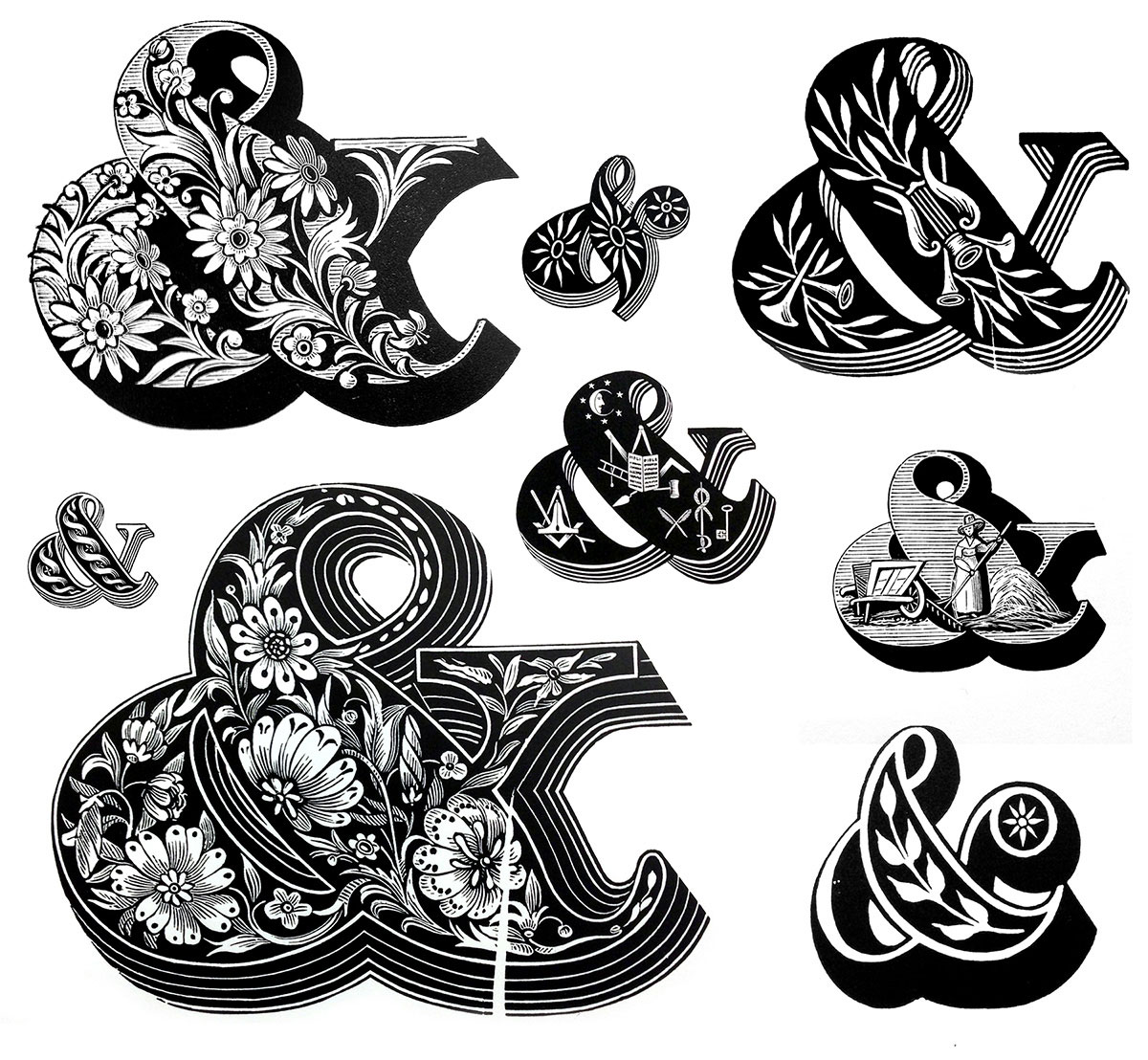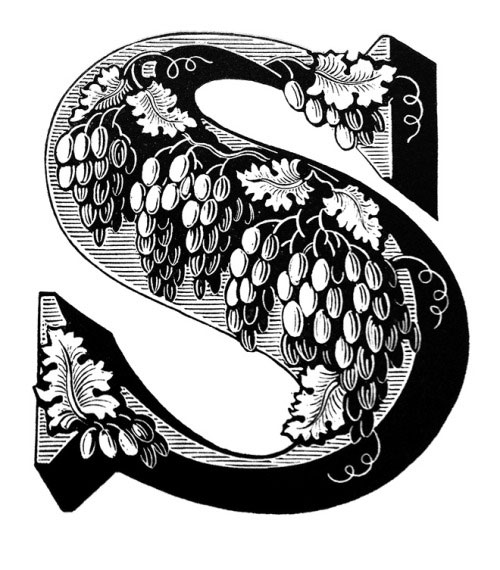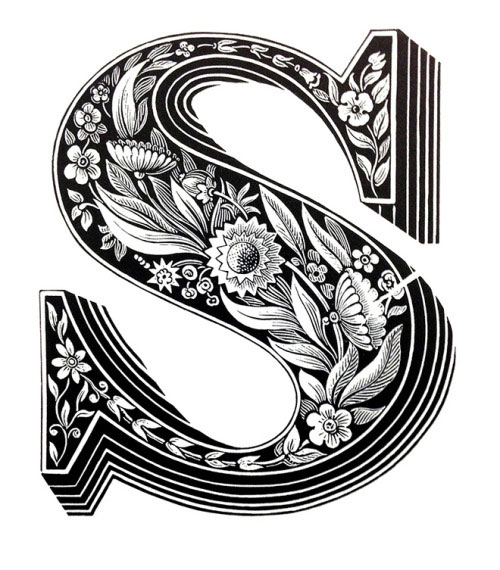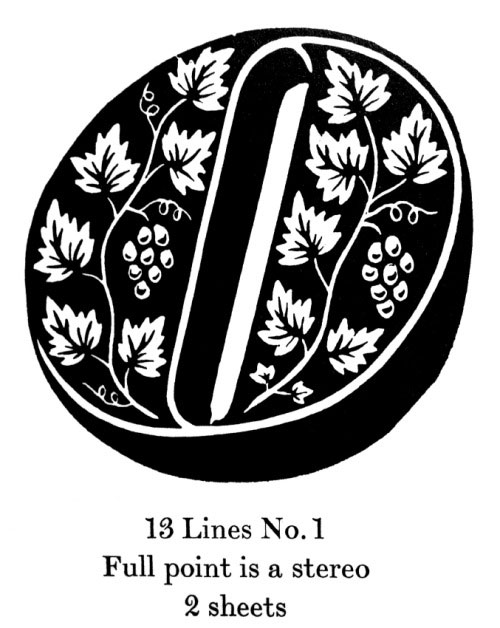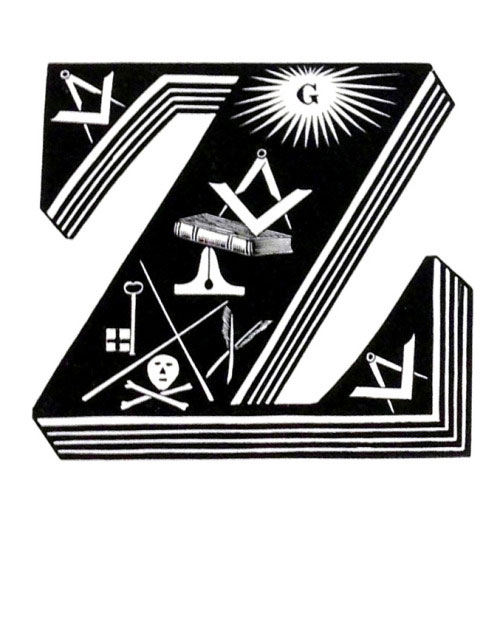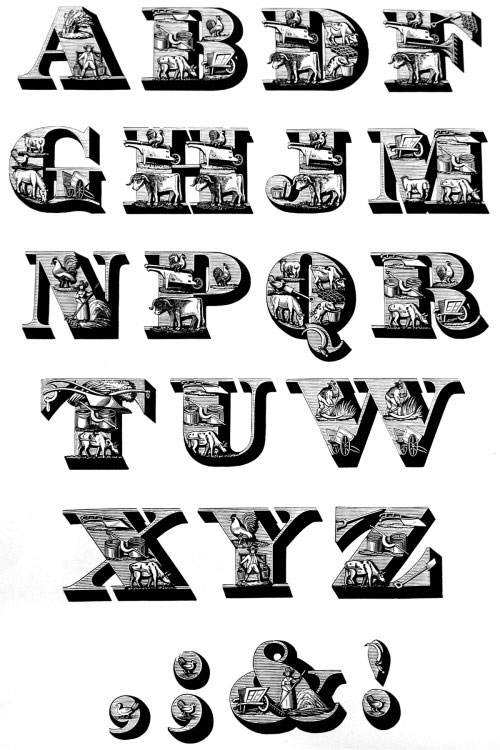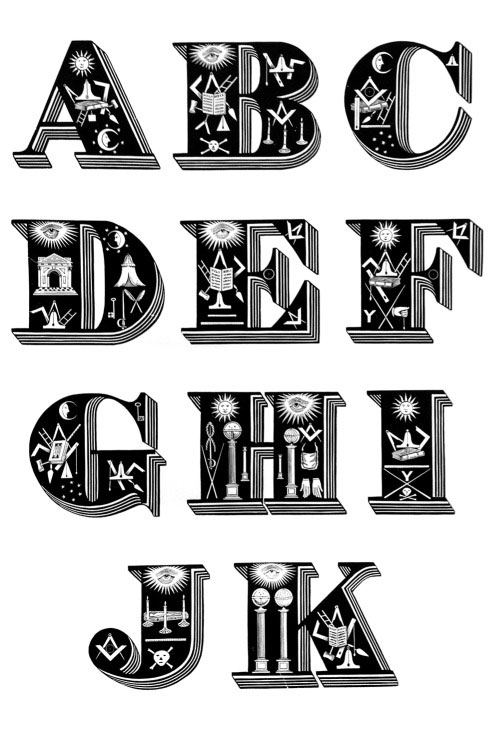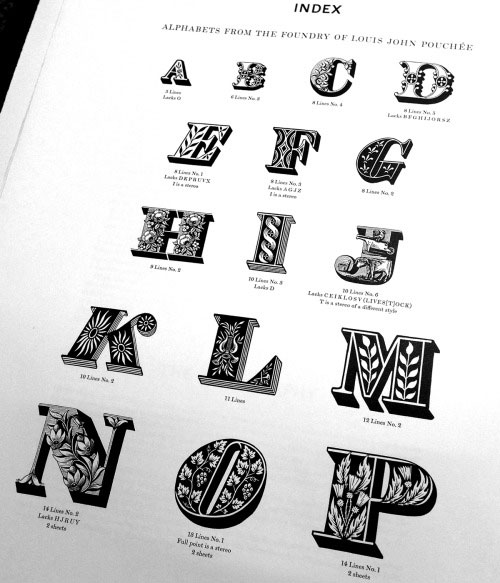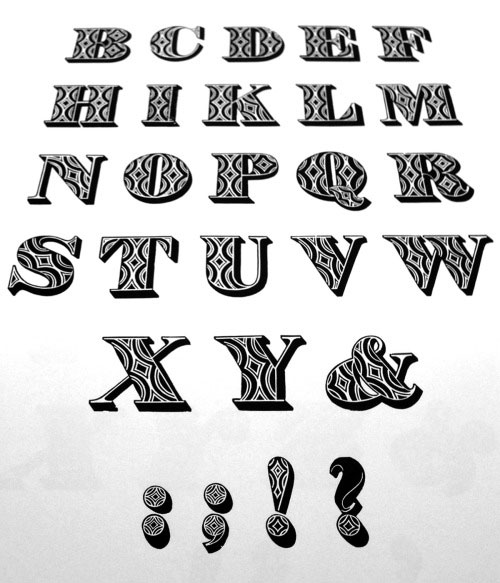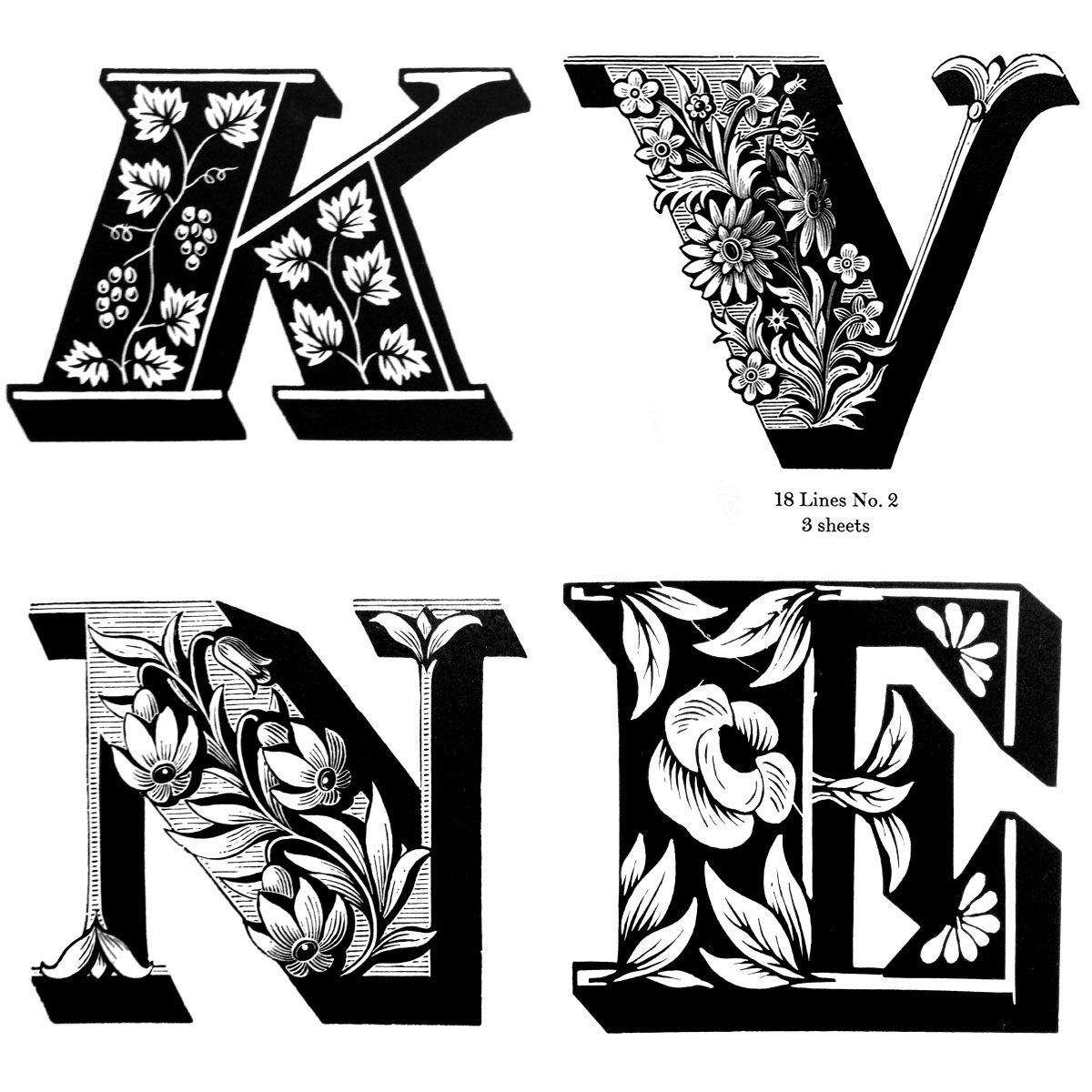
Louis John Pouchée’s lost alphabets are the most beautiful types ever
Few contemporary display alphabets equal those of Louis John Pouchee for vivacity and invention” comments Eye magazine on these astonishingly intricate letter designs that were presumed lost in a fire in 1940 at Monotype’s London office. Regarded as the most ambitious and most beautiful types created in wood in any period and designed for eye-catching headlines these ornamented letterforms with their musical, masonic and agricultural motifs were designed in the early 1820s and their details will have you astonished, just like legendary graphic designer Peter Saville was when he used them for the cover art of Pulp’s “We Love Life” album back in 2001.
It was in the early years of the nineteenth century when the skilled engravers at the London type foundry of Louis John Pouchée produced a series of finely crafted decorative alphabets. Intended as eye-catching elements for printed posters, the beautiful large letters, up to 26 lines (over 100 mm) in cap height and made from single blocks of end-grain boxwood are mostly in the early nineteenth-century fat face style.
Virtually lost for over 150 years, they have been resurrected in a limited boxed edition as Ornamented Types: Twenty-three alphabets from the foundry of Louis John Pouchée through a collaboration between the St Bride Printing Library in the City of London, in whose collection they reside, and Ian Mortimer of I.M. Imprimit. And nothing can match their originality and vivacity, even today.
“The fat faces and slab serifs designed in the first decades of the nineteenth century were reviled by taste-setting printers and typographers in the 1920s” adds Mike Haines. “During the 1930s display types of this period underwent a re-appreciation and were promoted by typographic opinion-formers such as Robert Harling’s journal Typography (1936-39). Nicolete Gray’s Nineteenth Century Ornamented Types and Title Pages (1938) contains reproductions of the Pouchée types described erroneously as examples of the “early Victorian ‘exuberant’ style” and credited to the Wood & Sharwoods London foundry. The idea that the alphabets dated from the second half of the nineteenth century survived and the selection from three of the types published in John C. Tarr’s Lettering: A Sourcebook of Roman Alphabets (1951) is similarly described as “Victorian wood-cut letters”.
Regarded as the most ambitious types created in wood in any period these ornamented letterforms were designed in the early 1820s
The 1960s saw a revival of interest in decorative display types stimulated by the introduction of two new technologies for display setting: headline photosetting and dry-transfer lettering. Among the best-sellers for Letraset in the late 1960s were Lettres Ornées and Romantiques No. 5, two highly ornamented types in the French style described inaccurately as part of an “Art Nouveau” range. These were used widely in magazine headlines, posters and packaging, alongside the highly condensed sans serifs which were also fashionable. Five of the Pouchée designs were reproduced in the journal Motif in 1967 and sample letters published by James Mosley in the Journal of the Printing Historical Society (1966) stimulated academic interest.
The idea of publishing Ornamented Types began in 1983, when Mortimer and Mosley proofed the entire collection of blocks using one of the Albion hand-presses at St Bride to provide archive proofs for the library and repro proofs for a possible commercial edition (which has not been undertaken). The results affirmed the outstanding quality of the types and Mortimer made a proposal to the City of London Corporation (which has responsibility for the St Bride material) for their publication. The preparation and printing of the types was nearly three-quarters of the way through when new evidence about their origins came to light as a result of substantial research into the Pouchée foundry, particularly by Julia Horsfall, Mortimer’s partner at I.M. Imprint. A complete history of the blocks began to emerge.
Today the Pouchée collection is the largest known to have been made in England at this time and the only one known to have survived
The story of the ownership and whereabouts of Pouchée’s alphabets in the twentieth century begins in 1936 when the type foundry H.W. Caslon & Co was force to close and its stock was sold to its competitors. The Sheffield type foundry Stephenson, Blake & Co acquired a number of punches and matrices; the Monotype Corporation purchased much of the rest of the stock including three tons of punches and 23 alphabets engraved on boxwood. Monotype’s new collection attracted an enthusiastic if small group of admirers, but following a fire at the company’s London offices in 1940 it was believed that the ornamented alphabets had been destroyed. This remained the case until the 1960s, when Monotype’s collection of hand-punch-cutting materials was re-examined as rapid changes in typesetting technology led to a more urgent interest in preserving the past. The collection, including the ornamented alphabets, was transferred to the University Press in Oxford and subsequently to the St Bride Printing Library.”
Today the Pouchée collection is the largest known to have been made in England at this time and the only one known to have survived. Louis John Pouchée (1782-1845) set up his type foundry in Lincoln’s Inn Fields in 1818. identified by printing historians as the importer of Henri Didot’s mechanical type founding machine, Pouchée recruited skilled masters of typography, paid them loads of money but sold his type more cheaply than other foundries. This strategy of his led to the collapse of the trade association and made him an unpopular figure among his tribe. His type foundry closed in 1830.
Nearly eleven years in the making, “Ornamented Types” is regarded the most exacting printing project to have been undertaken by a contemporary private press
“Ornamented Types is perhaps the most exacting printing project to have been undertaken by a contemporary private press” continues Daines on the project that took nearly eight years to bring to fruition and three years to print. “The blocks were meticulously cleaned before printing began, revealing much additional detail. Because the blocks were not intended to be printed from directly, many are not accurately finished, are not square and their sides are not vertical. To achieve a constant impression, variations in level were corrected by a succession of finely graduated paper underlays prepared individually for each block. Each block also had to be packed to avoid rocking and each base supported uniformly to withstand the pressure of the pull during printing without moving. In order to be able to achieve lock-up on the bed of the press, without the pressure causing individual letters to rise, the gaps had to be packed with slivers of bevelled paper or card. Some letters required a slight rotation to ensure alignments and letter spacing had to be arranged to fit within Mortimer’s page design without creating poorly spaced combinations. Depending on the size of the letters, between one and five printing forms were required to print a complete alphabet. Once printing began, it could take as long as three days to arrive at the first good proof of a single page and at least three more days to print 200 good impressions of that page.”